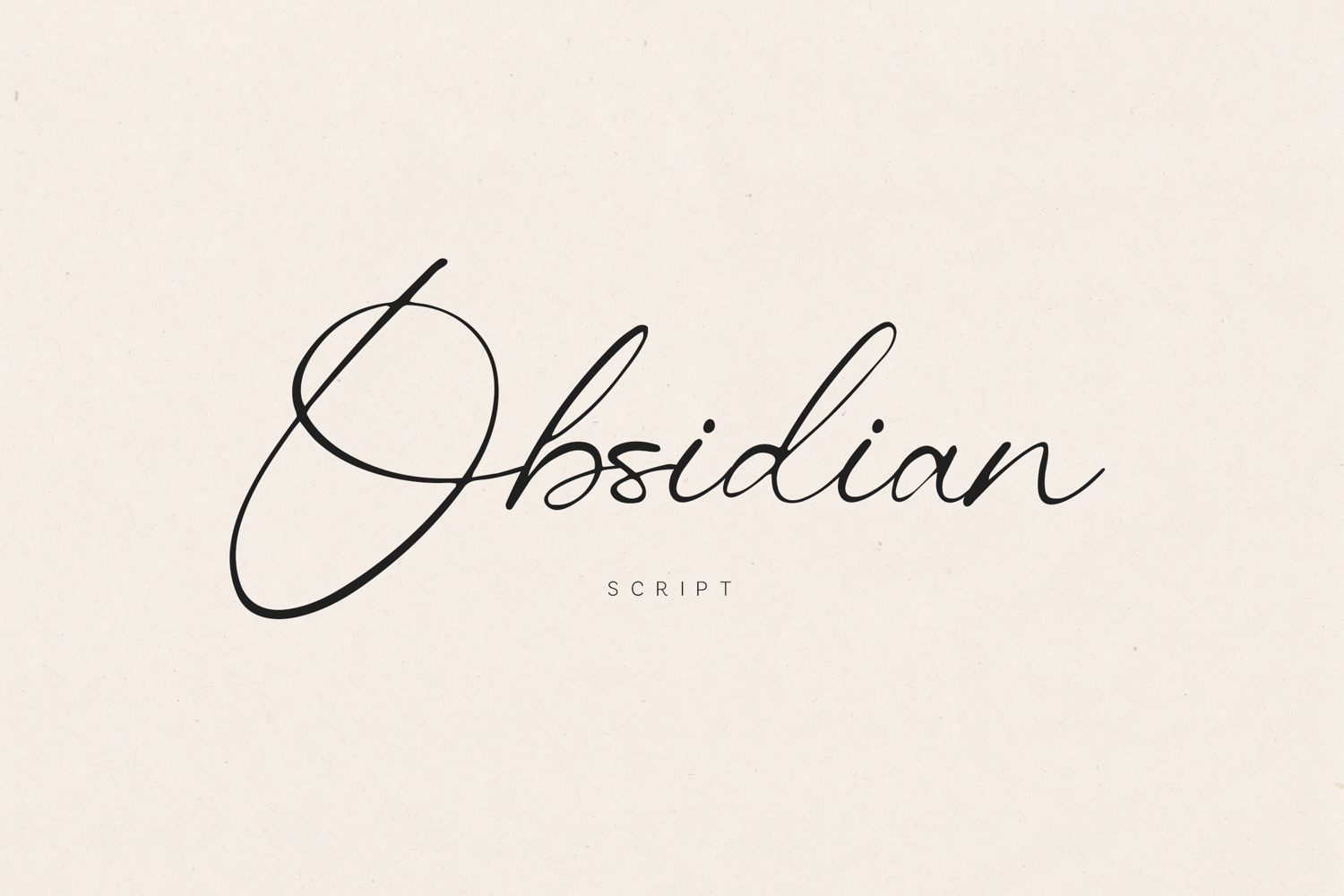
Obsidian is a modern signature script typeface designed to feel natural, fluid, and effortlessly refined.
With smooth strokes and balanced curves, it captures the essence of handwritten elegance while maintaining clarity and control. The letterforms flow organically, creating a sense of movement that feels premium.
Obsidian is perfect for designs that need a human touch — expressive, stylish, and timeless.
✦ Perfect for:• signature logos
• branding
• wedding & event design
• social media content
• packaging & labels
• fashion & lifestyle visuals
• Smooth connections & natural flow